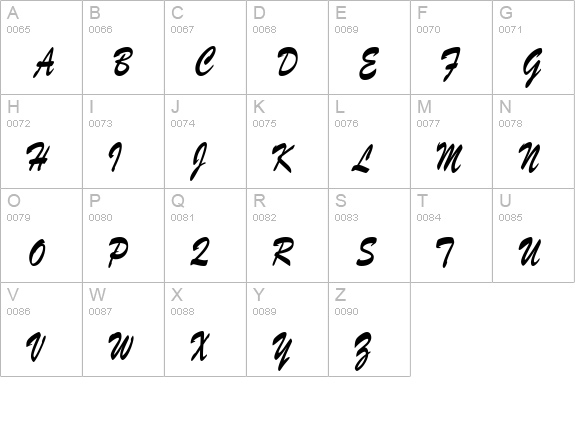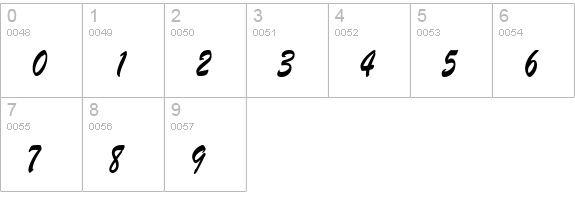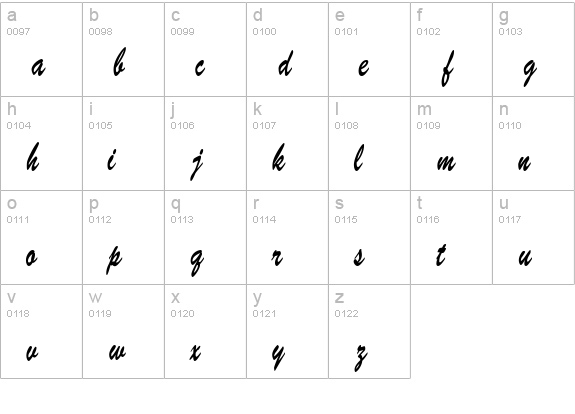
BrushScriptSWCondensed Font Details
BrushScriptSWCondensed is a stylish and elegant font that exudes sophistication and charm. With its delicate and flowing brush strokes, this font brings a touch of class to any design project. Perfect for adding a personal touch to invitations, greeting cards, and other creative endeavors, BrushScriptSWCondensed is a versatile choice for both print and digital media. The best part is that BrushScriptSWCondensed is available for free download at FontsMarket.com. Whether you're a graphic designer looking to add a unique flair to your work or a casual user in need of a special font for a project, BrushScriptSWCondensed is the perfect choice. Don't miss out on this opportunity to enhance your designs with this beautiful and free font. Download it today and let your creativity shine!